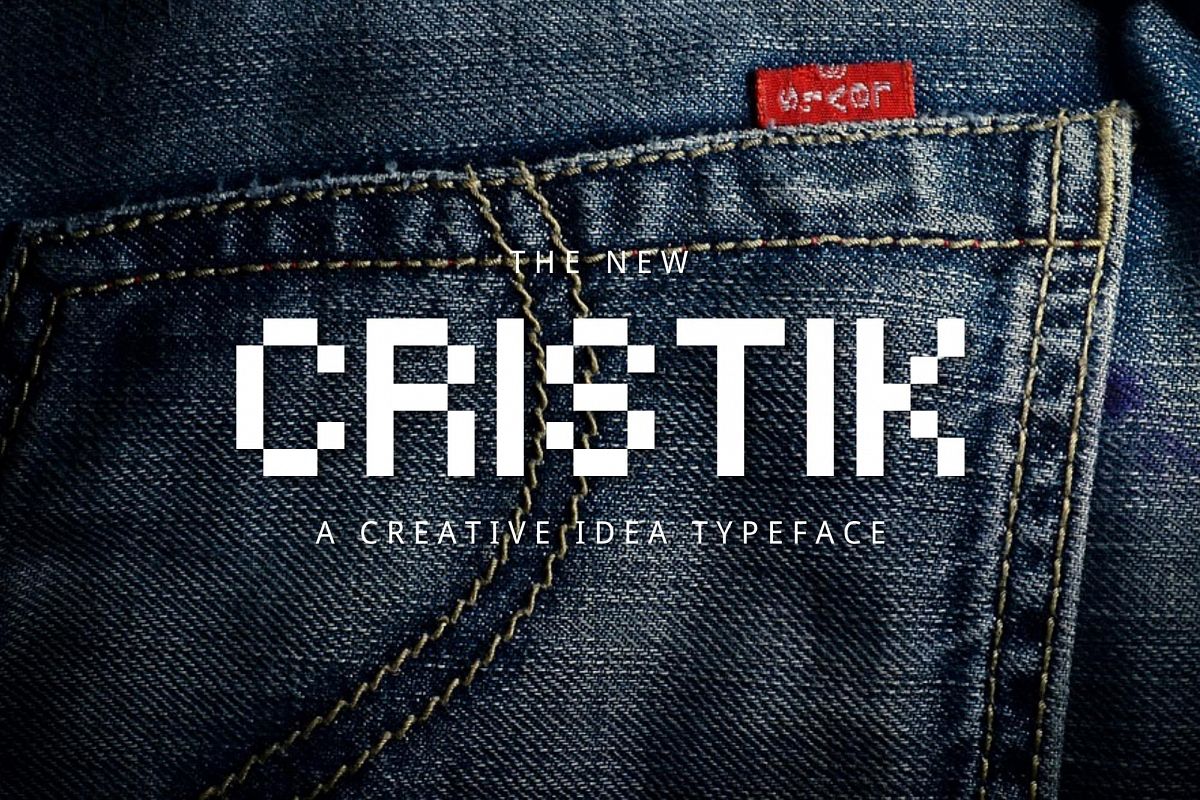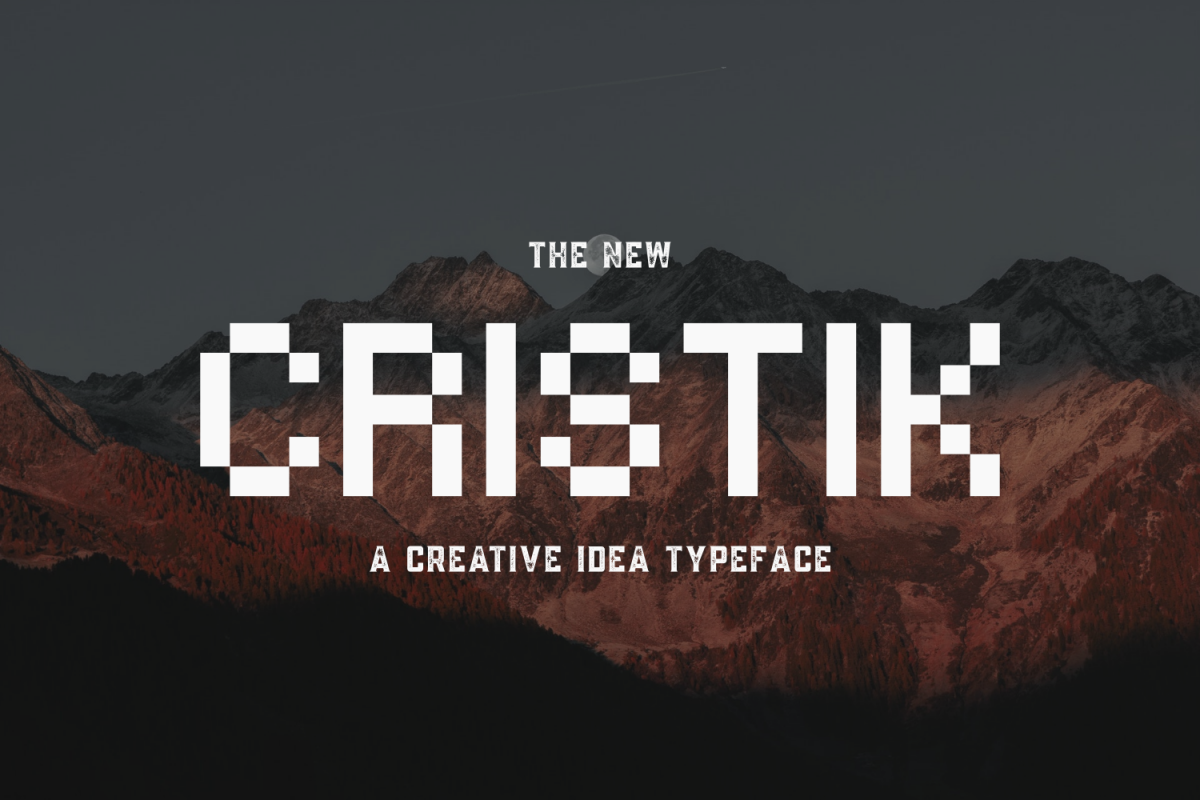
Introducing Cristik Typeface is perfectly suited to, stationery, logo, typography quotes, magazine or book cover, website header, clothing, branding, packaging design and more. FIles Included